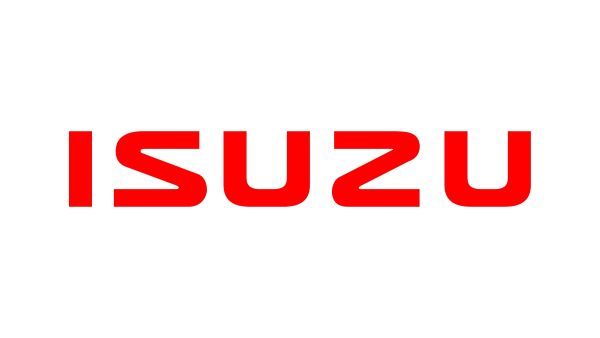
Isuzu Font
What Font is Used in the Isuzu Logo?
Isuzu Font used in the company’s logo was designed by Iconian Fonts, ( for commercial use of the font please visit Iconian Fonts)featuring a bold and futuristic style that reflects the brand’s focus on innovation and reliability. The sharp edges and clean geometric shapes give the logo a modern and industrial look, perfectly aligning with Isuzu’s reputation for durable and high-performance vehicles.
Below is the font inspired by the original Isuzu design, offering a great choice for automotive projects or branding that aims to convey strength and precision.